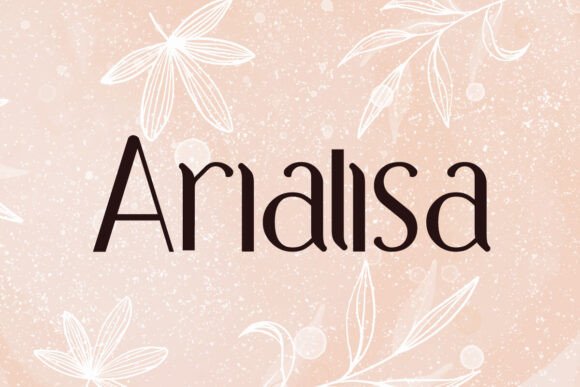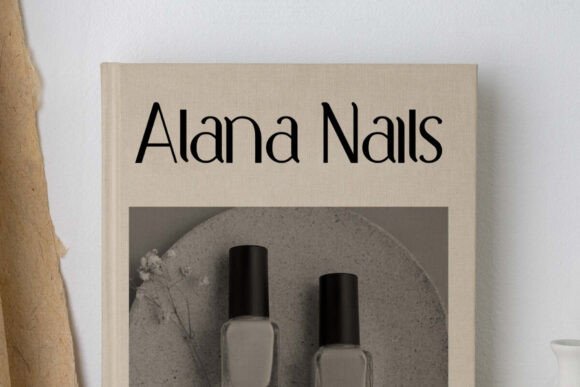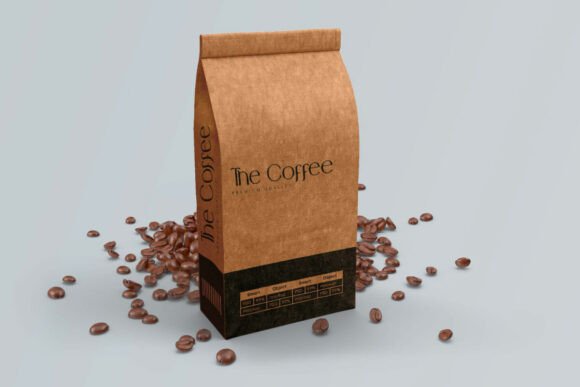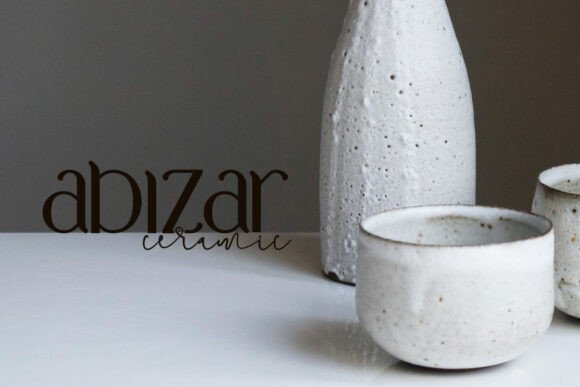
Arialisa Font: Elegant Sans Serif for Modern Branding & Logo Design
About the Arialisa Font
Elevate your designs with Arialisa Font, a font that combines sophistication with readability. Arialisa is a beautiful classic and casual sans serif display font. It looks to exude a natural elegance in enhancing your business, such as architect, beauty clinic, boutique, café, clothing brand, coffee place, construction, cosmetic, earthenware, event organizer, fashion, florist, furniture, handicraft, interior design, jewelry, nail care, photography, printing, publishing, real estate, restaurant, skincare, spa salon, writer, etc.
Arialisa’s elegant yet casual nature makes it ideal for headlines, logos, short-form text on packaging, and stylish posters. Its refined curves prevent it from being overly bold, making it suitable for branding applications where a touch of sophistication is desired. However, its limited x-height and relatively large counters make it less suitable for body text or UI elements requiring high readability.
Consider pairing Arialisa with a clean sans-serif like Helvetica Neue for a modern feel, or a classic serif like Garamond for a more timeless combination. A playful script font could add a touch of personality depending on the brand identity, while a geometric sans-serif would create a striking contrast.
Arialisa projects a friendly yet sophisticated personality, best suited for brands aiming for a balance of approachability and high quality. Its versatility allows it to adapt to a variety of applications within this style range.
Arialisa Font Usage Examples
Arialisa Font Example